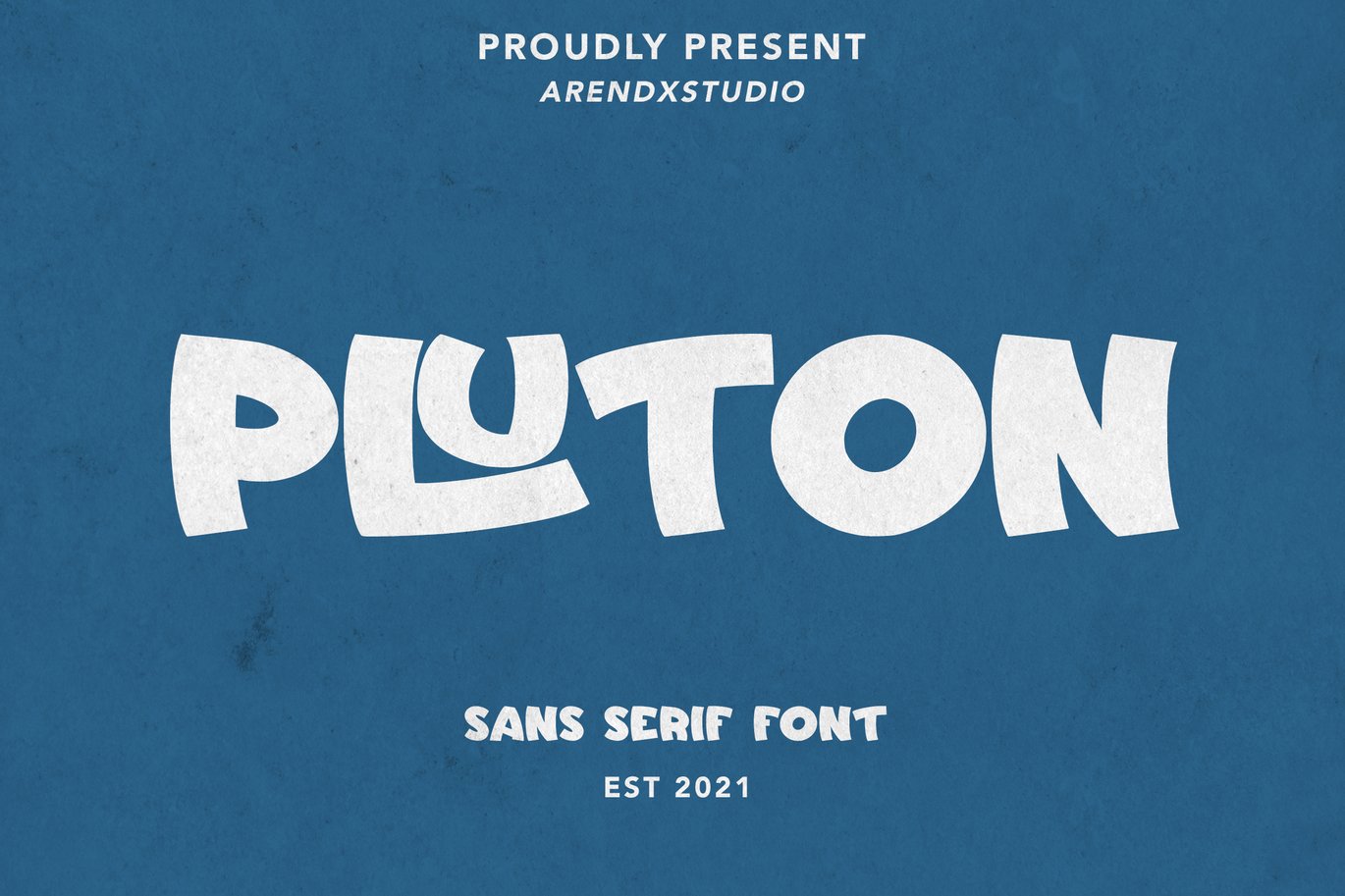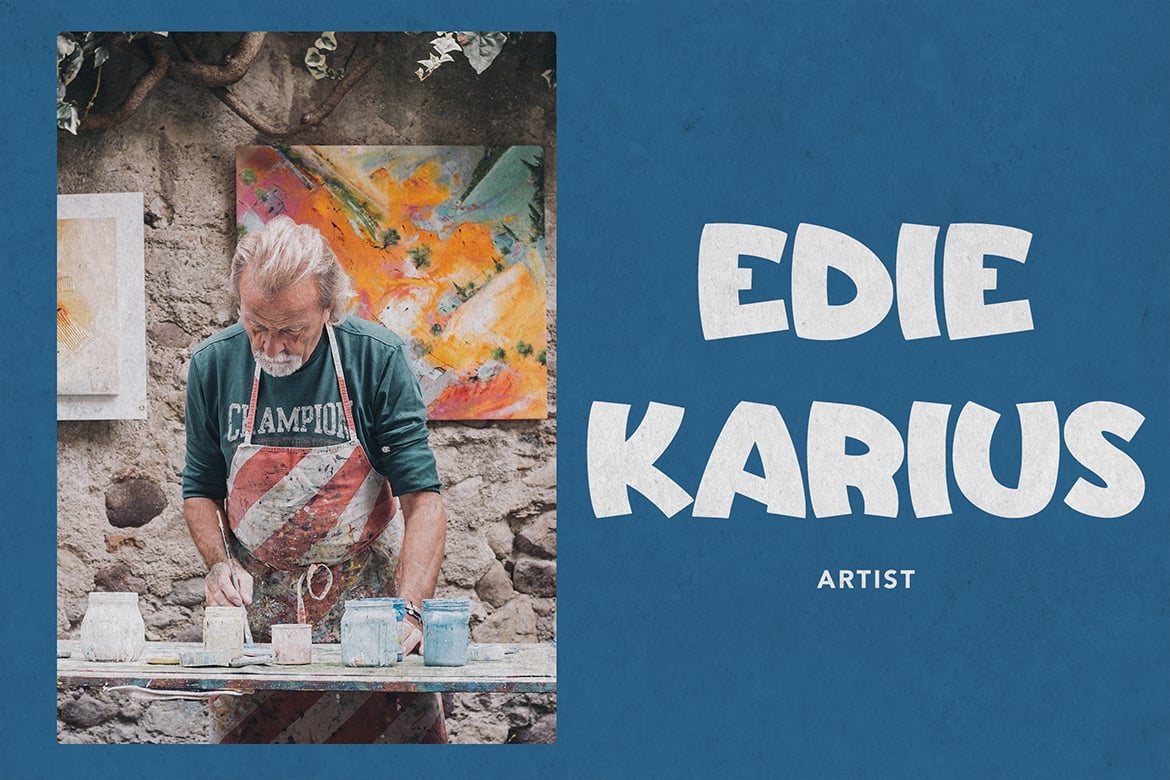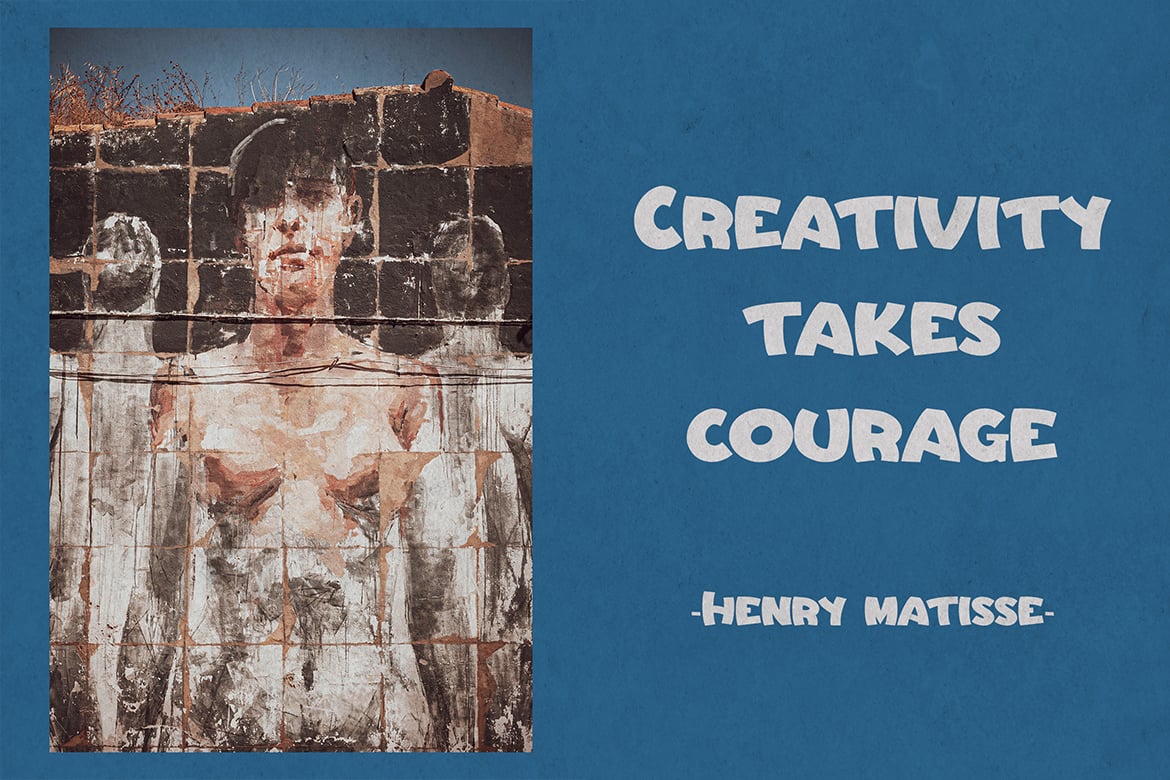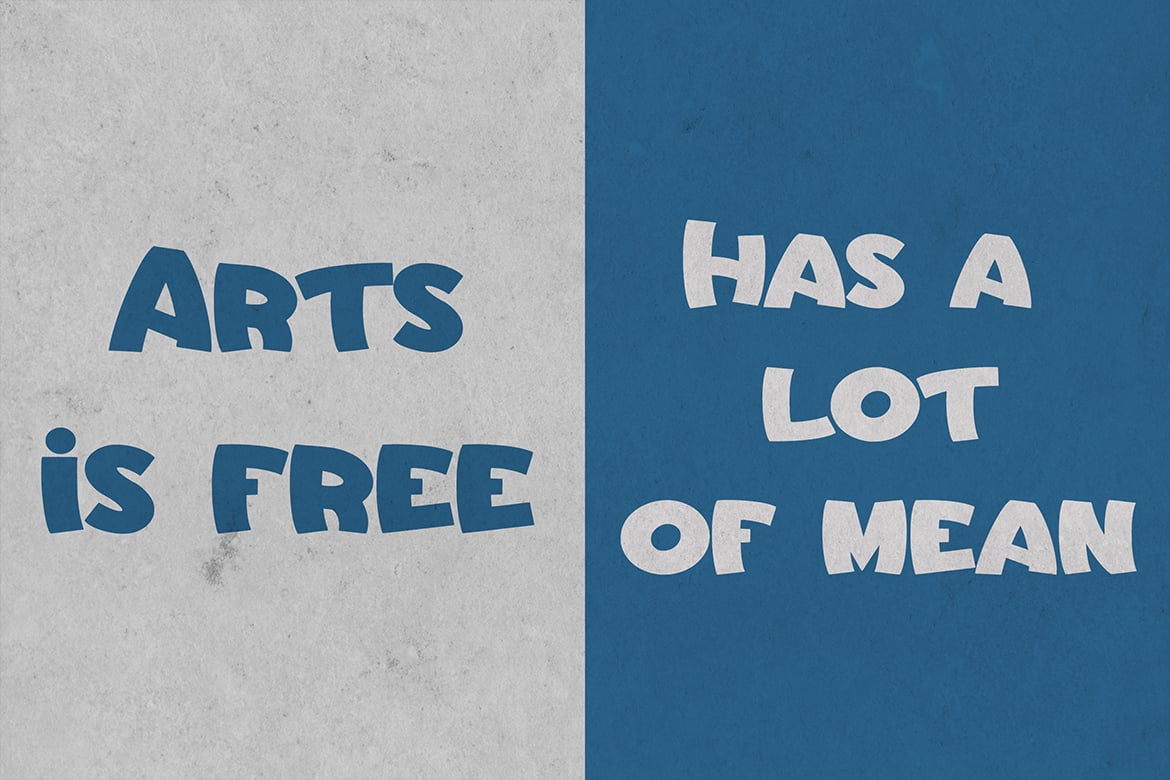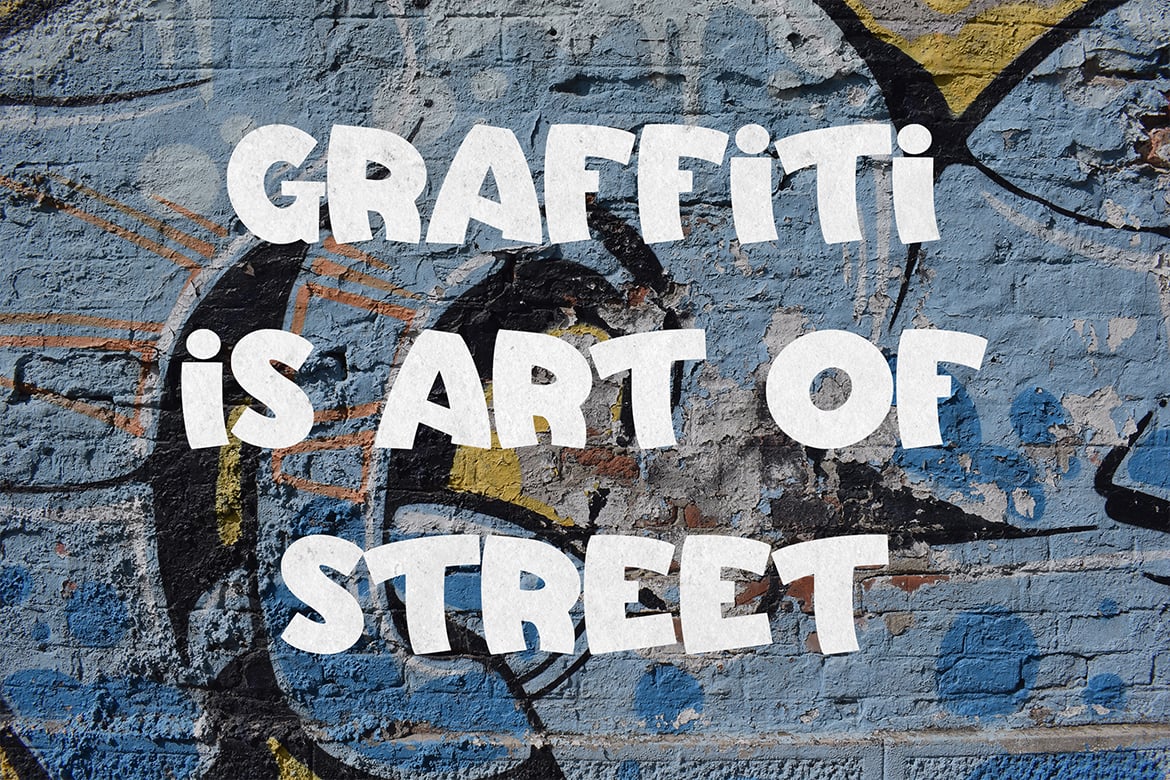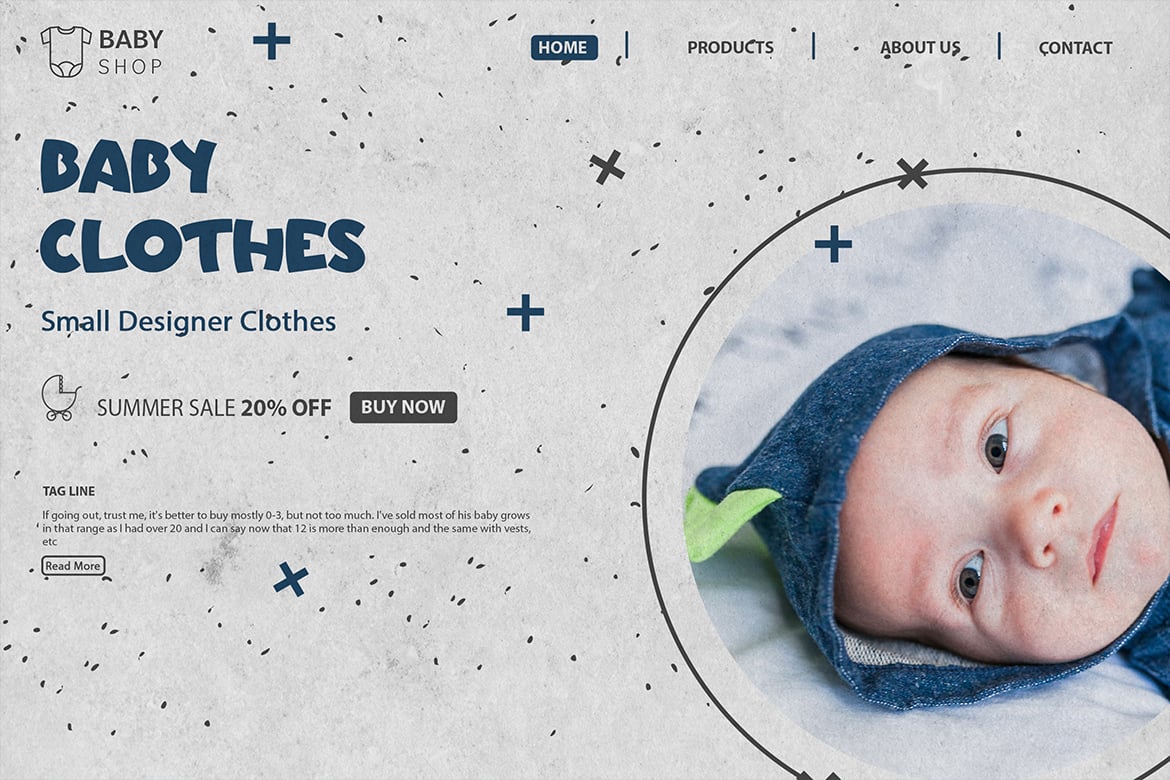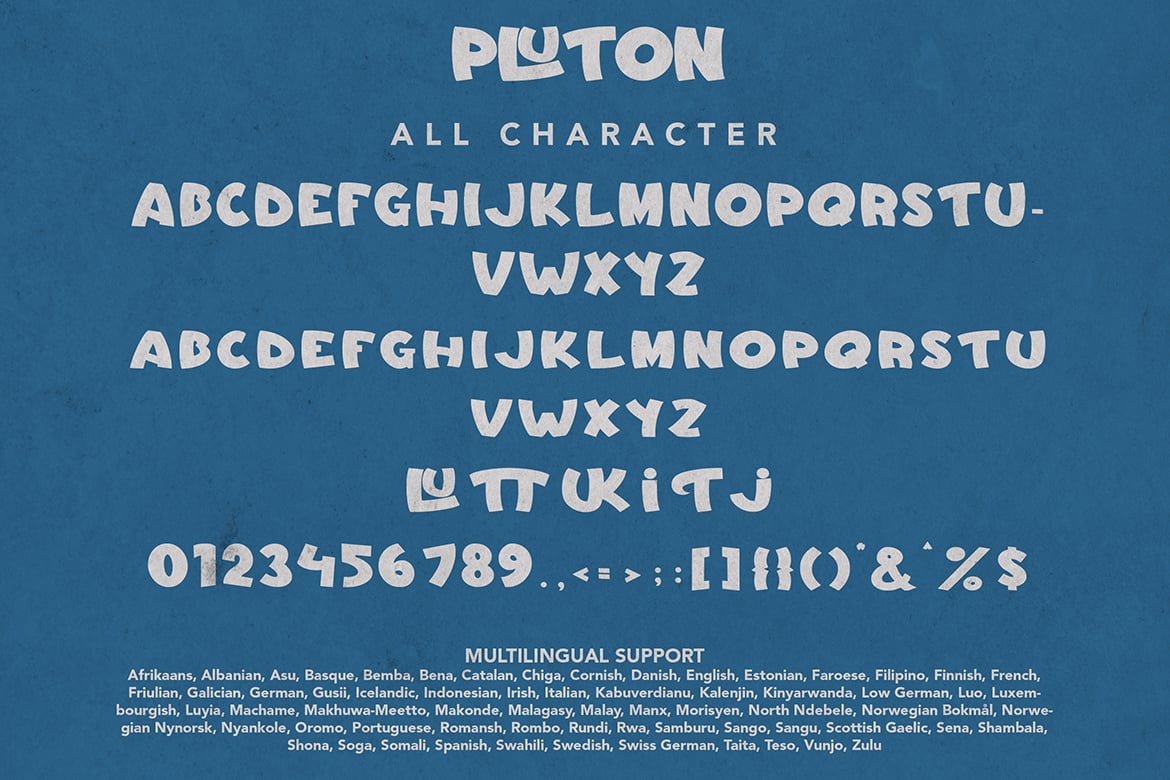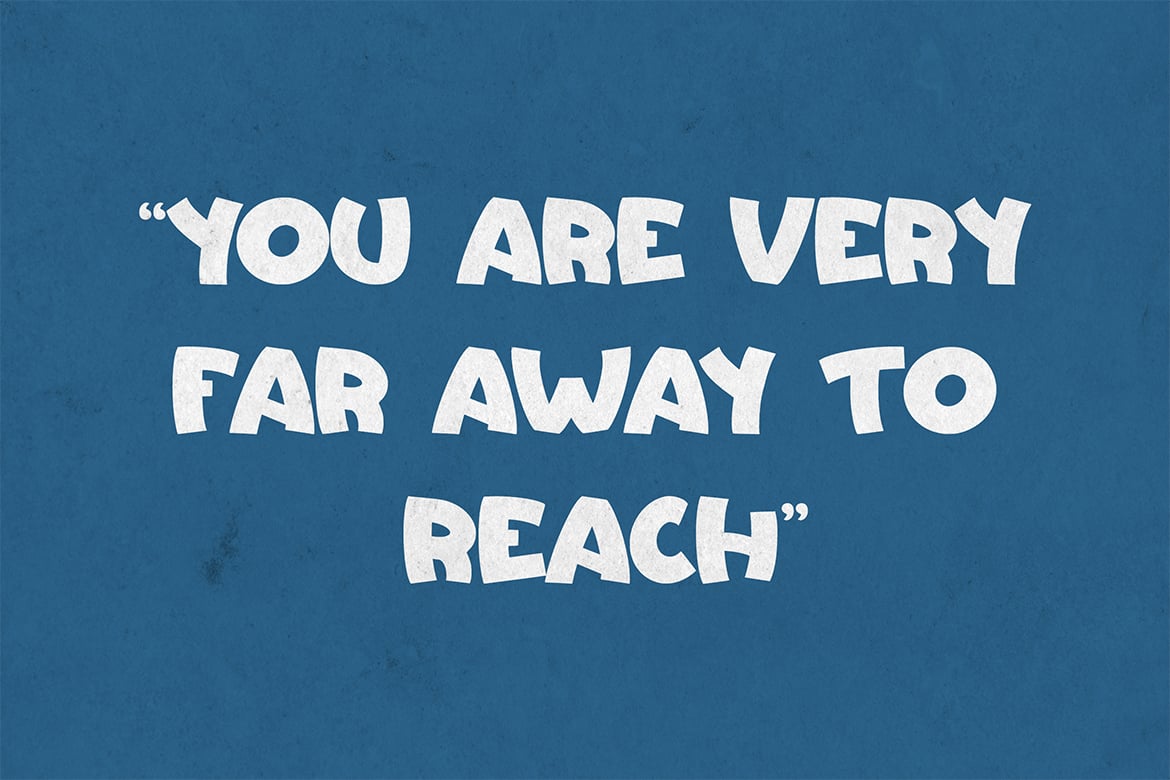
Pluton – Sans Serif Font
Pluton – Sans Serif Font is a free style font that has the characteristics of street art that shows freedom and is filled with unique characters
Features : • Character Set A-Z • Numerals & Punctuations (OpenType Standard) • Accents (Multilingual characters) • Ligature • Alternate